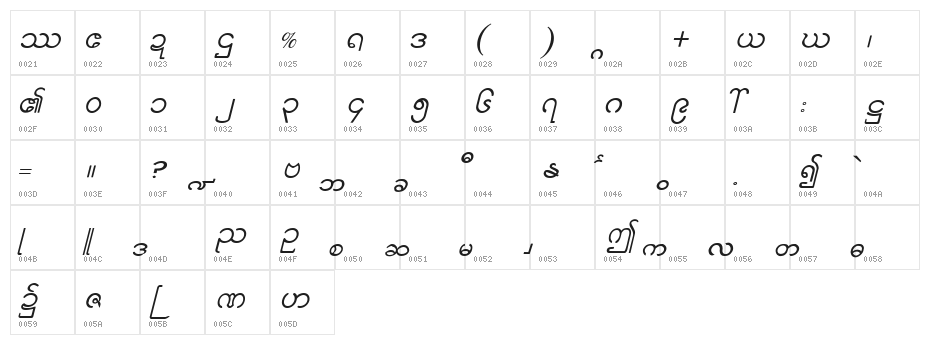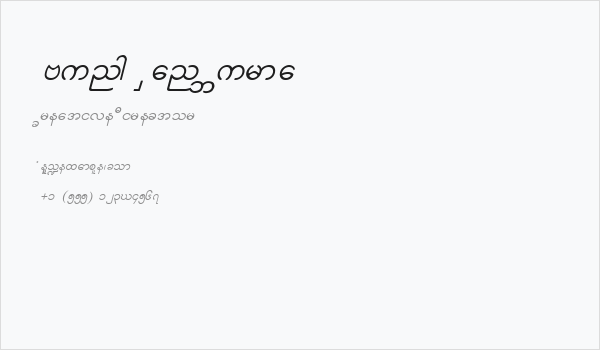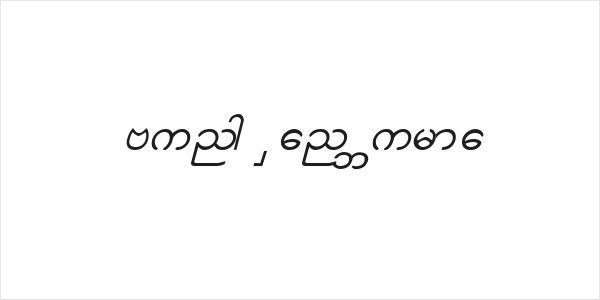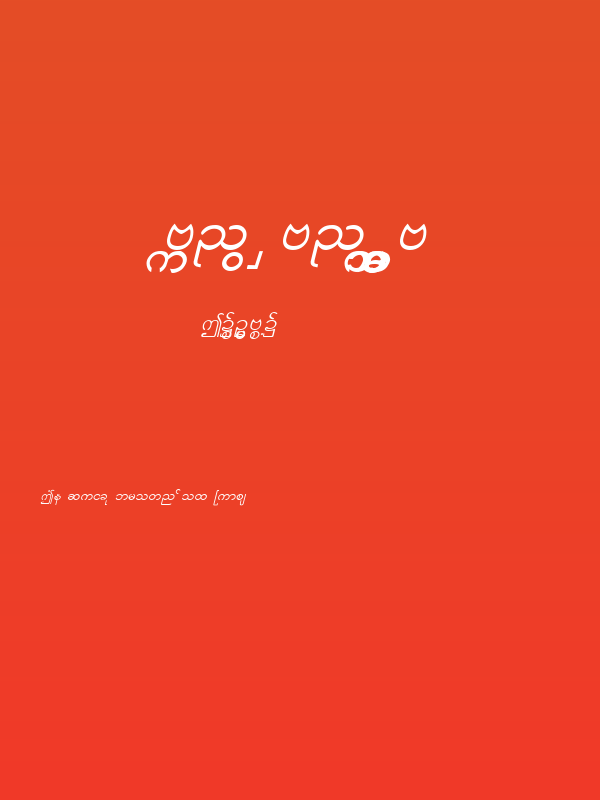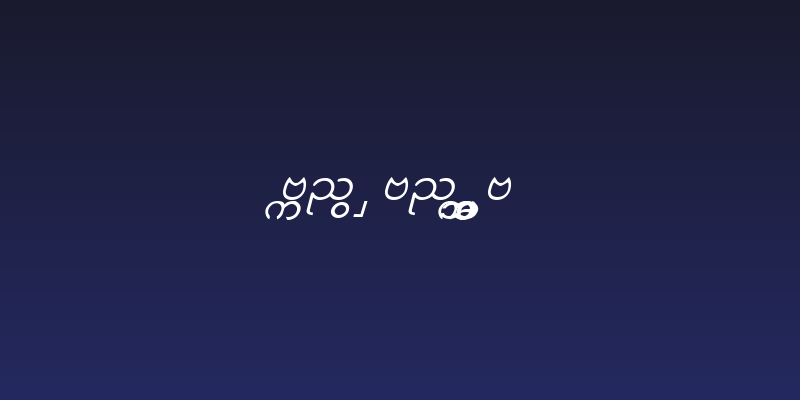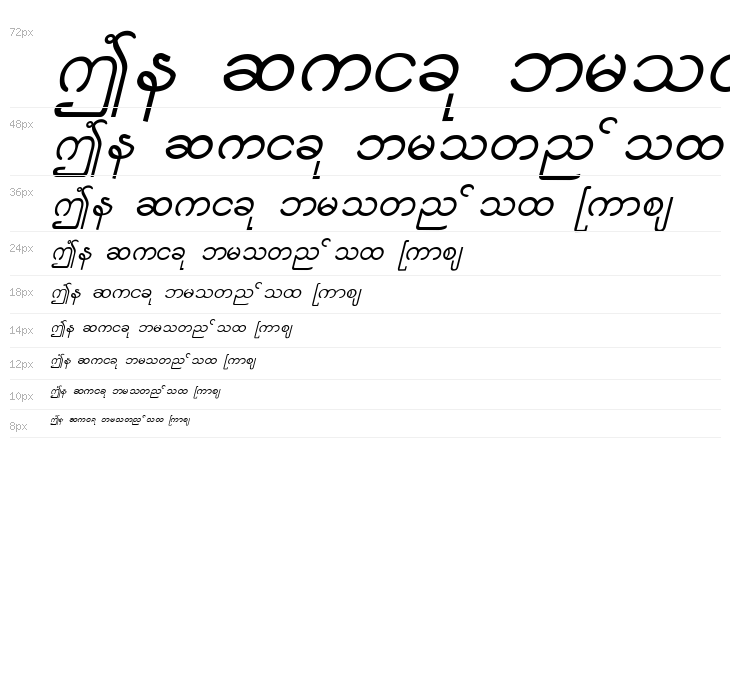
Aung San Burma Font
Aung San Burma Description
This font features a distinctive script style with elegant curves and loops, characteristic of Burmese script. The characters are intricately designed, showcasing a blend of traditional and modern aesthetics. The strokes are smooth and fluid, providing a sense of movement and grace. The font maintains a consistent line weight throughout, ensuring readability while preserving the artistic flair. It is suitable for both formal and informal contexts, offering versatility in its application. The overall appearance is harmonious and balanced, making it ideal for creative projects that require a touch of cultural authenticity.
| Overall Style | Traditional, Artistic |
| Use Case | Headlines, Artistic projects, Cultural publications |
| Proposed Projects | Ideal for cultural publications, artistic projects, branding materials, and educational content related to Burmese language and culture. |